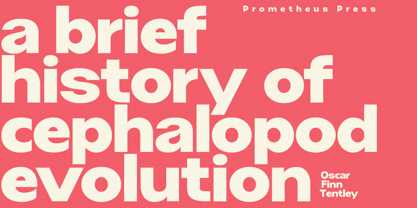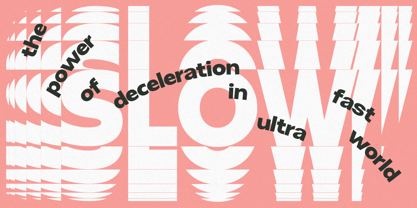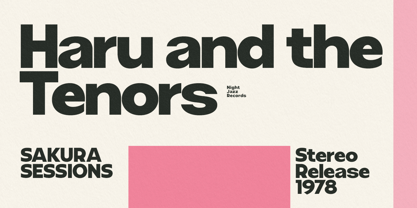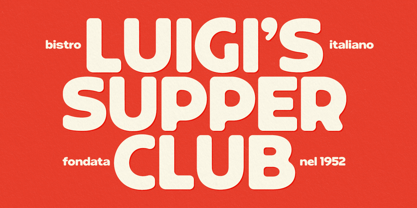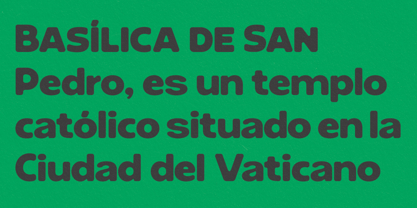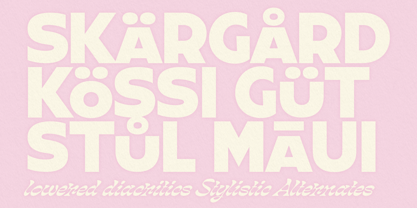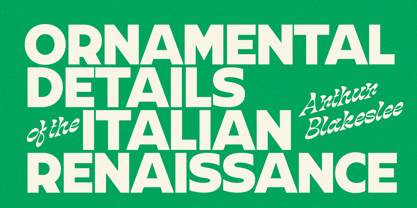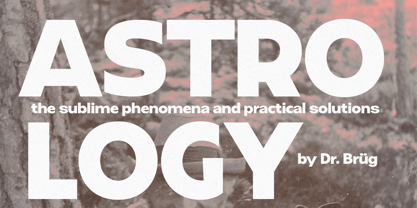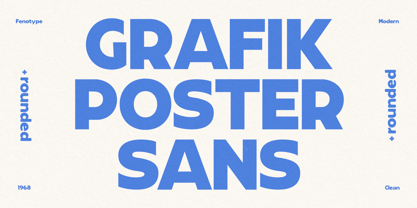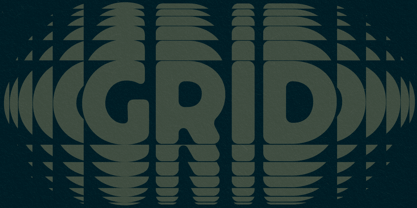
Grafik Poster
by Fenotype
The Grafik Poster Font Family was designed by Emil Karl Bertell and published by Fenotype. Grafik Poster contains 2 styles and family package options. More about this family
Grafik Poster Sans is bold display sans serif inspired by 60s and 70s graphic design, combining features from different styles. It’s and effective type for posters, headlines and other types of display use. Grafik Poster Sans is equipped with lowered uppercase diacritics, set in Stylistic Alternates, for creating tight text boxes. Try Stylistic Alternates also for triangular quotation marks for more geometric approach.
Designers: Emil Karl Bertell
Foundry: Fenotype
Grafik Poster
About Fenotype
Emil Bertell has done it all. Having published his first font files at 16, he was considered to be an international free-font hero while still in his teens. He went on to attend design college, drop out, and become a well-known graphic designer and illustrator. Now one of the most successful type designers from the Nordic countries on MyFonts, the Finland-based designer said in his Creative Characters interview that he’s “had an obsession with visual culture from the beginning.” Before turning his attention to type design full-time, Emil had a very successful career as an award-winning illustrator. “Illustration became my main livelihood,” he said. “I drew painstaking pencil illustrations for magazines, advertising, stamps, etc. I often designed my own fonts for festivals and hand-drew the lettering posters; I also did a few pencil illustrations based on lettershapes, and that got out of hand, so I had to do a lot more of them.” In 2012 he finally made the switch and committed all of his time to type design. Emil first saw success with his Billboard typeface. “It became my first Rising Star on MyFonts and made me realize that I could actually make a living by designing fonts,” he said. “I realized that there’s actually a market out there that I could become a part of.” Throughout the rest of that year he began to see even more success. It began in January, when his font, Mishka, was featured in our Most Popular Fonts of 2011 list. He went on to find a way to bookend the year and was listed among the Most Popular Fonts of 2012 with his Mercury Script design. Since then, his foundry’s success has continued on with best sellers like Voyage and The Carpenter. Fans of the foundry have a lot to look forward to in the near future. Emil will continue to produce beautiful scripts (some coming soon to MyFonts!) and has plans to expand his business.